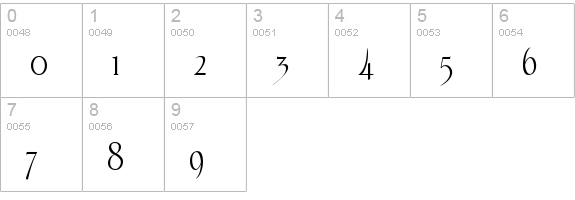
Introducing the magnificent Echelon font, a breathtaking display of elegance and sophistication. This font exudes a sense of timeless beauty with its smooth curves and delicate details, making it the perfect choice for any design project that requires a touch of class. Echelon font is a true work of art, meticulously crafted to bring your creations to life. Its graceful strokes and balanced proportions create a harmonious visual experience that captivates the eye and elevates your design to new heights. One of the most remarkable aspects of Echelon font is that it is absolutely free. Yes, you heard that right – this stunning font is freely available to download at FontsMarket.com. This means that you can add a touch of elegance to your designs without breaking the bank. Whether you're working on a logo, branding materials, invitations, or any other design project, Echelon font will always make a lasting impression. Its versatility allows it to shine in both bold headlines and delicate typography, giving you endless possibilities to explore. With Echelon font, you are not only getting a high-quality typeface, but also a tool that empowers your creativity. Its extensive character set includes a wide range of glyphs, ligatures, and alternates, allowing you to customize your designs to perfection. So why wait? Don't miss out on the opportunity to enhance your design projects with the beauty and elegance of Echelon font. Visit FontsMarket.com now and download this incredible font for free. Elevate your designs, inspire your audience, and make a lasting impression with Echelon font.